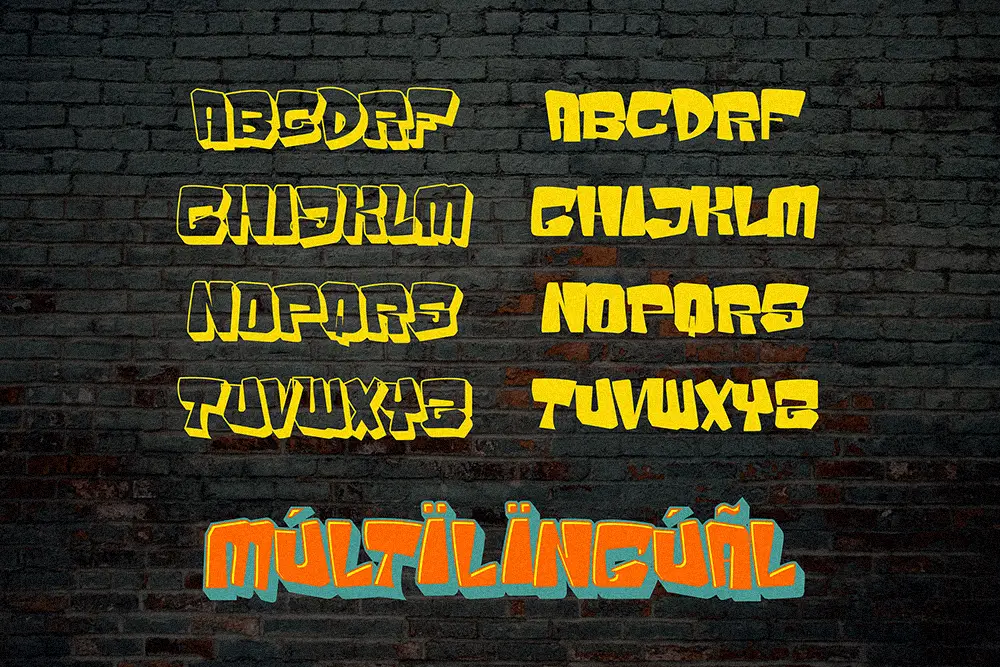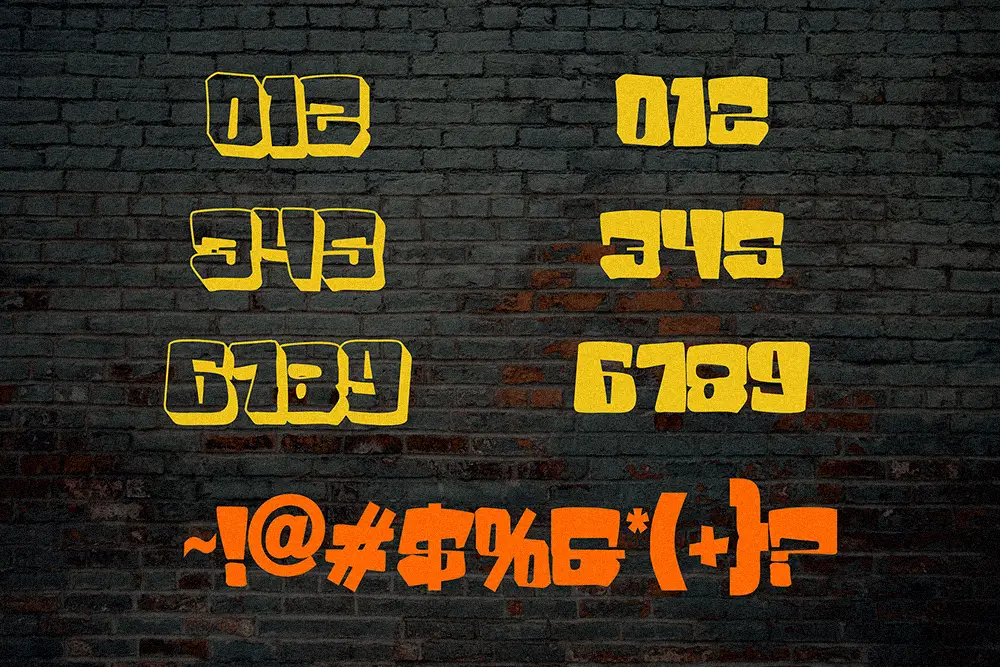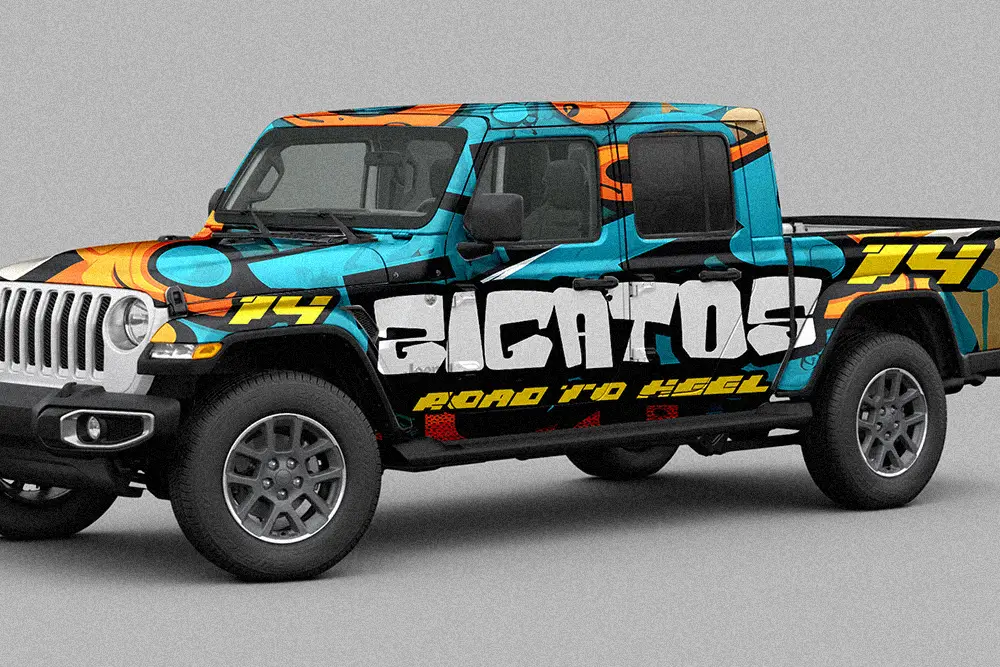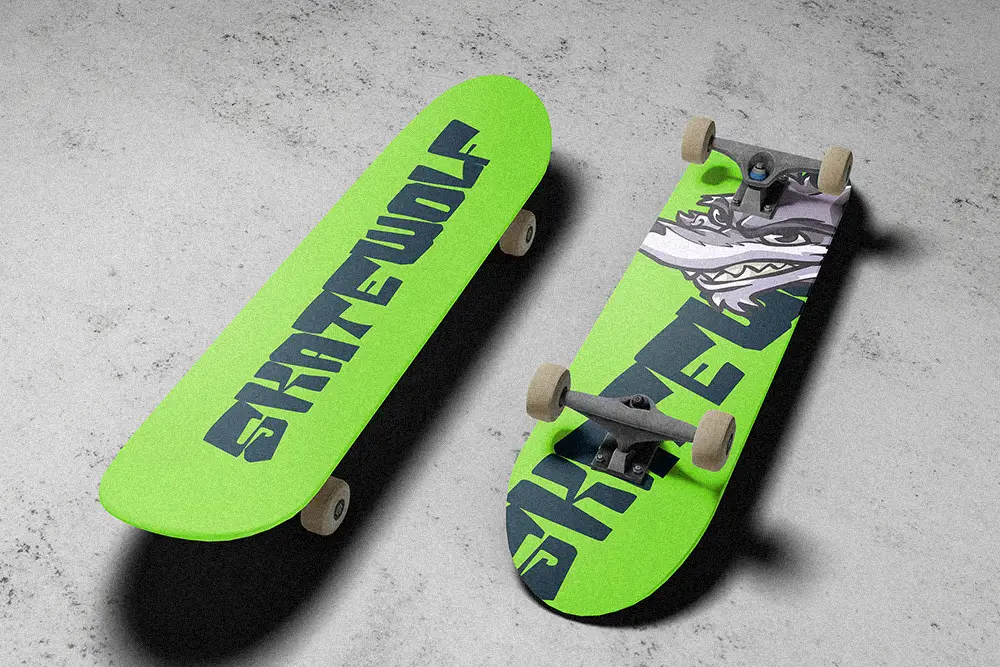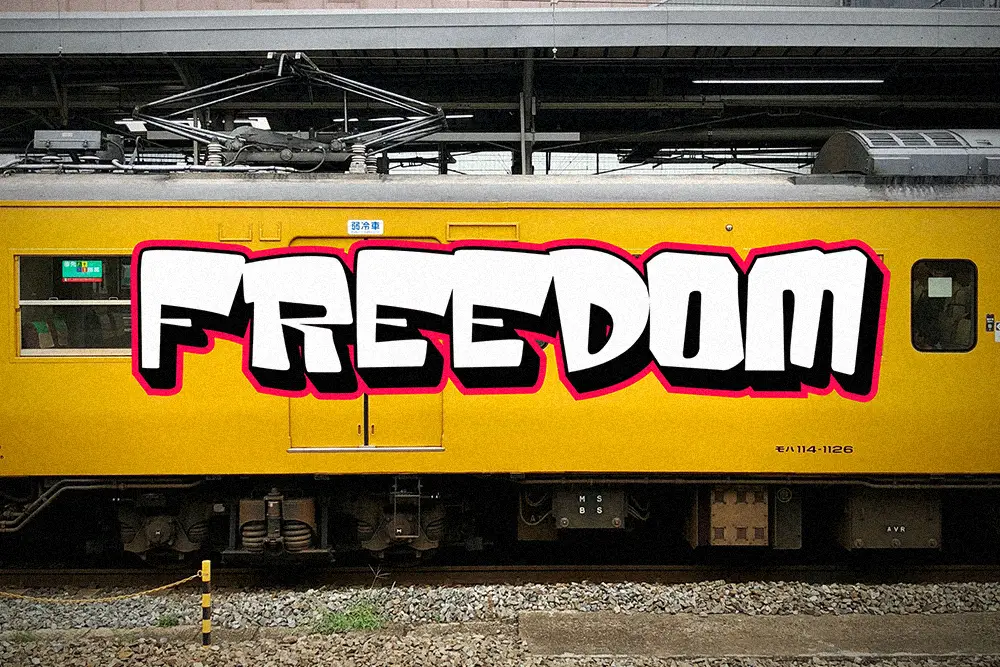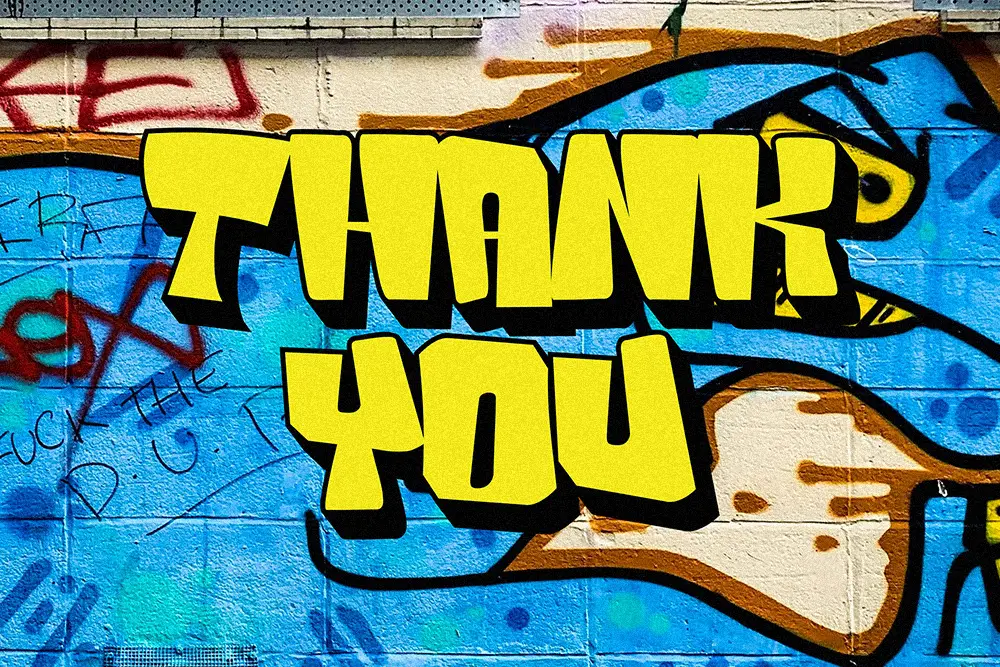
Badge Robo – Layered Graffiti Font for Bold Urban Design
Typography can bring life, energy, and identity to modern urban visuals. Badge Robo – Layered Graffiti Font is created to capture the fearless, dynamic spirit of street art. With its layered design—regular, inner, and shadow—this graffiti typeface gives designers endless ways to add dimension and impact.
This layered graffiti font is bold, expressive, and built for projects that need attention. Perfect for posters, logos, album covers, murals, and event branding, Badge Robo makes sure your message feels alive with urban character.
Layered Graffiti Font with All-Caps Power
Unlike standard fonts, Badge Robo is designed as an all-caps layered graffiti font. Every character is crafted with sharp edges, bold strokes, and street-inspired flair. The layered system (regular, inner, shadow) lets you create powerful 3D-like effects, giving your text real street presence.
The flexibility of this layered graffiti font means you can go subtle with one layer or go all-out with stacked shadows for high-energy impact. It’s the perfect balance of art and functionality.
Key Features of Badge Robo – Layered Graffiti Font
To help designers maximize creative potential, Badge Robo includes a set of strong features:
- All Caps Design: Uppercase characters only, perfect for loud and bold statements.
- Multilingual Support: Extended Latin character set for global usage.
- Layered System: Combine main, inner, and shadow for graffiti-style effects.
- Street-Inspired Style: Perfect for urban, hip-hop, skate, and digital culture projects.
- High Impact Readability: Bold enough for posters, clear enough for logos.
Why Designers Love Badge Robo
Designers worldwide love Badge Robo because it embodies everything a layered graffiti font should deliver: personality, energy, and flexibility.
- Authentic Street Feel: Every letter feels like hand-sprayed graffiti.
- Creative Options: The layered system opens possibilities for shadows, highlights, and 3D effects.
- Bold Presence: Works perfectly for headlines, murals, and branding.
- Easy Pairing: Combines beautifully with handbrush fonts like Roadpunks Handbrush Typeface.
- Versatile Usage: From digital posters to merchandise, it adapts easily.
Badge Robo for Logos and Urban Branding
Logos in the urban, music, and creative industries require unique energy. Badge Robo delivers exactly that. As a layered graffiti font, its bold all-caps style gives brands a rebellious yet professional look.
The shadow and inner layers add depth to logos, making them memorable across packaging, merchandise, and promotional campaigns.
Badge Robo for Posters and Advertising
Posters are meant to shout, and Badge Robo is the voice. Its layered graffiti font style is ideal for event promotions, concert posters, street festivals, and digital ads.
With layered customization, you can choose a flat bold look or enhance it with shadows for more energy. This flexibility ensures your poster always stands out.
Using Badge Robo in Digital Media
In the age of digital expression, Badge Robo shines as a layered graffiti font for social media, album art, YouTube banners, and streaming graphics.
Its layered depth makes designs pop even on small screens, while its all-caps energy communicates confidence. Pair it with Roadpunks or other brush styles to add organic motion to your digital visuals.
- Character Set: All Caps, Numbers, Punctuation
- Multilingual Support: Yes
- Category: Layered Graffiti Font
- Best Uses: Logos, Posters, Branding, Urban Projects, Digital Media
Font Pairing Suggestions
For maximum creativity, pair Badge Robo with:
- Roadpunks Handbrush Typeface – raw brush strokes balance Badge Robo’s structured graffiti style.
Together, these fonts create an unstoppable street-inspired combo perfect for posters and branding.
Why Badge Robo is the Ultimate Layered Graffiti Font
Graffiti design is about expression, energy, and individuality. Badge Robo captures this spirit with its layered system, bold all-caps letters, and multilingual reach.
This layered graffiti font gives you freedom: use it simple or build layered masterpieces. Its flexibility makes it suitable for logos, event posters, and digital branding—anywhere you want authentic urban energy.
Badge Robo – Layered Graffiti Font is more than typography—it’s visual attitude. With regular, inner, and shadow layers, it gives your text dimension and energy.
If you’re ready to make your projects shout with confidence, Badge Robo is the graffiti typeface you need. Pair it with Roadpunks Handbrush Typeface for added motion, and let your designs own the street.